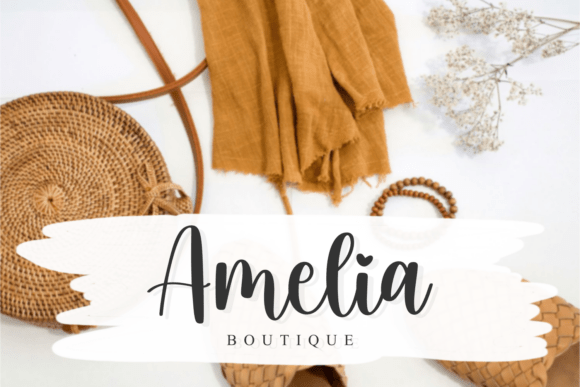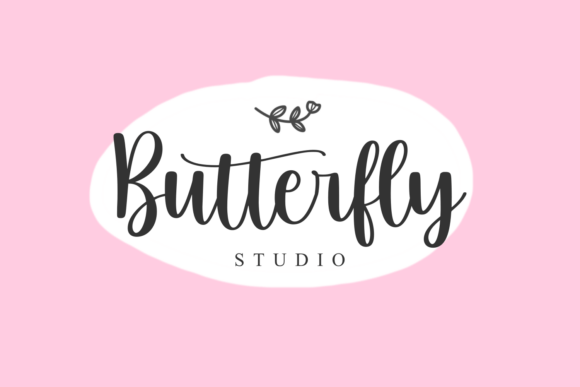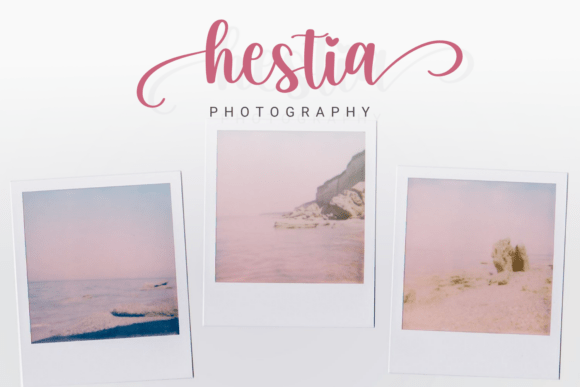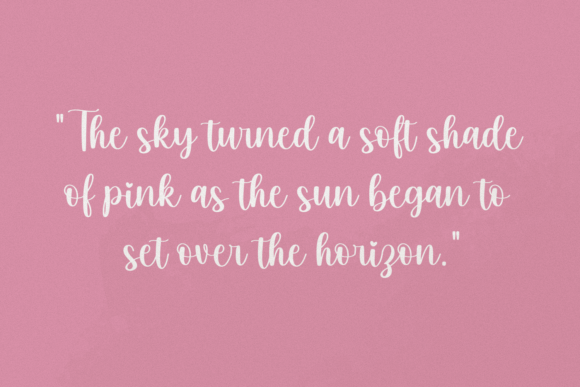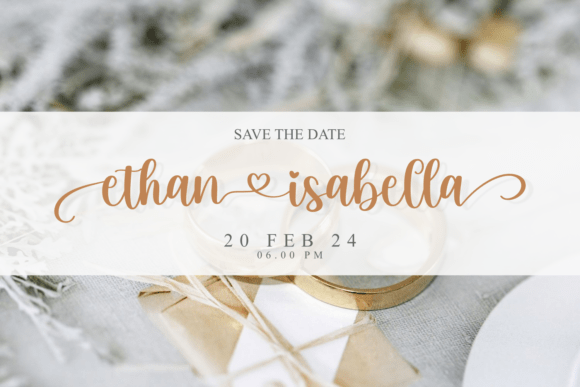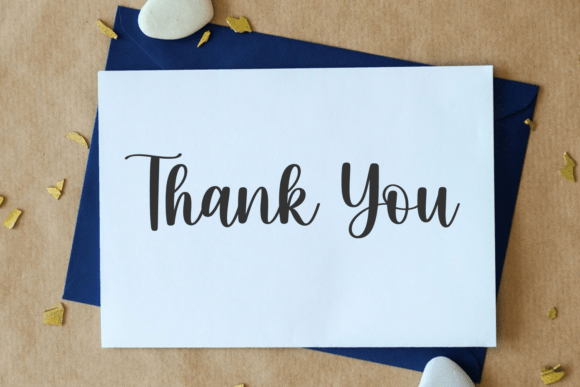
Introduction to Bellapink Font
Bellapink is a romantic font with thick strokes that convey a strong sense of love.
Its elegant and feminine design makes it suitable for various applications, such as graphic design, greeting cards, and branding that require an emotional touch With Bellapink, you can add a warm and loving feel to your work.
Key Features of Bellapink Font